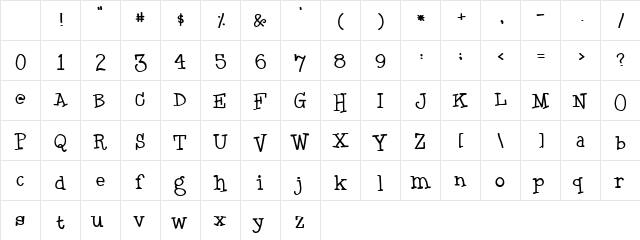
Black boys on mopeds Regular
Design Context for Black boys on mopeds
Black boys on mopeds is a composed and adaptable typeface that performs quietly and consistently across a wide range of design contexts.